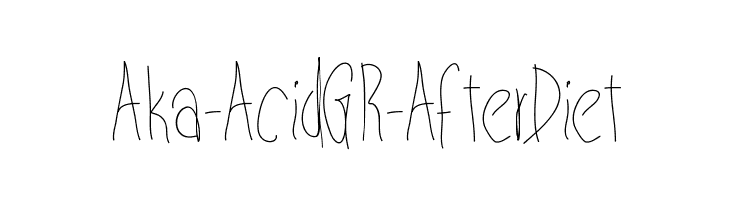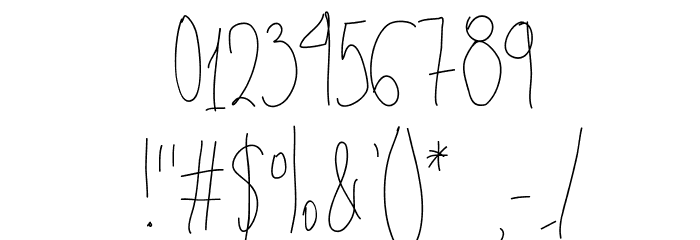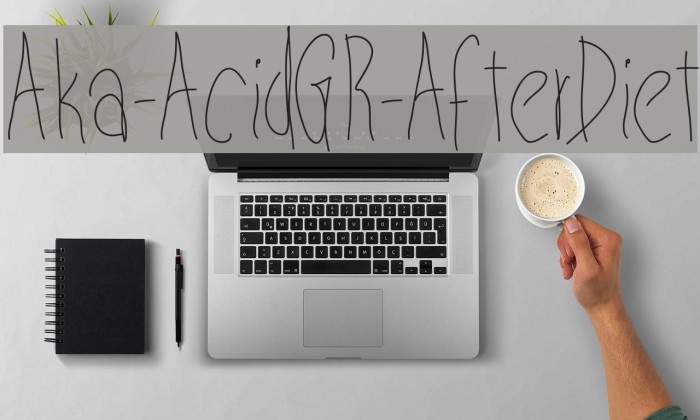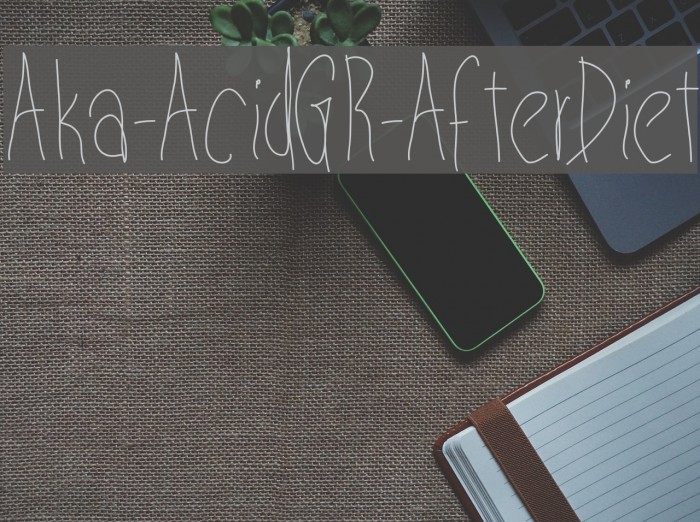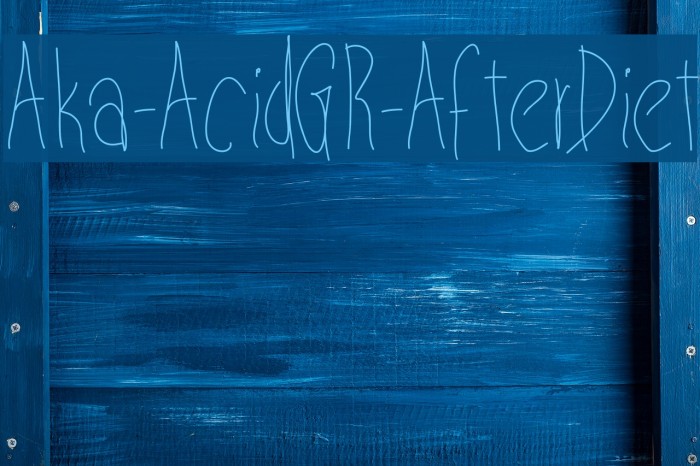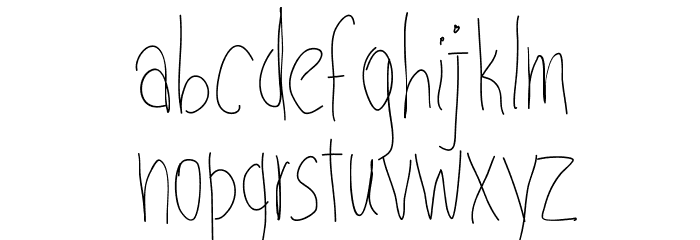
Aka-AcidGR-AfterDiet Font
Aka-AcidGR-AfterDiet Description
This font features a playful and informal handwritten style, characterized by its thin, uneven strokes and slightly irregular letterforms. The uppercase and lowercase letters maintain a consistent height, giving the font a cohesive look despite its casual appearance. The numbers and special characters follow the same whimsical design, adding to the font's overall charm. The strokes are light, with a low contrast between thick and thin lines, contributing to its airy and relaxed feel. This font is ideal for projects that require a personal touch or a sense of spontaneity.
A playful, informal handwritten font with thin, uneven strokes from Uncategorized fonts.
- Proposed Projects: Greeting cards, personal notes, children's books, casual branding, and social media graphics.
- Weight: Light
- Overall Style: Casual, Playful
- Use Case: Headlines, Informal text, Creative projects